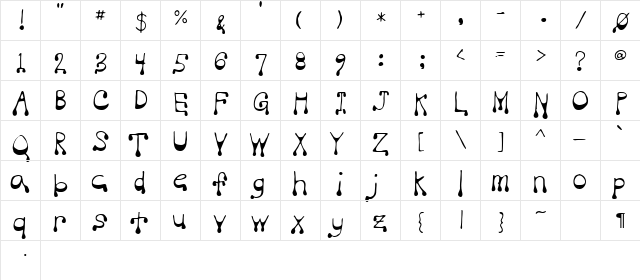
Vampire Regular
Design Context for Vampire Typeface
Vampire is a composed and adaptable typeface that performs quietly and consistently across a wide range of design contexts.